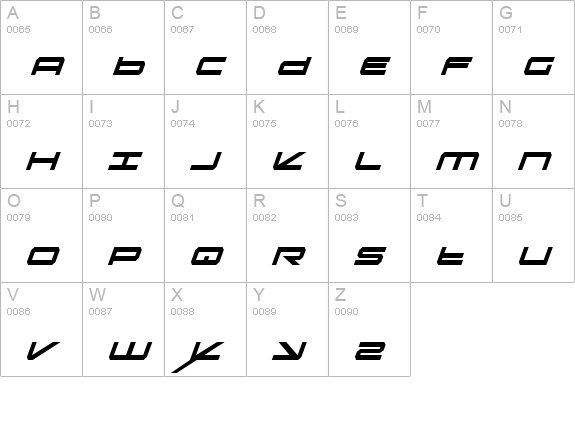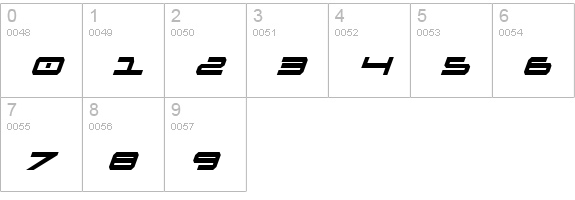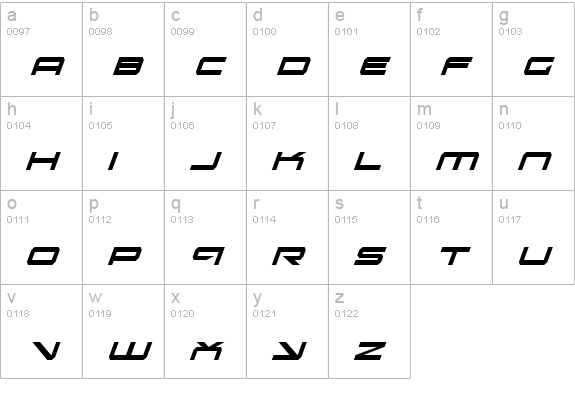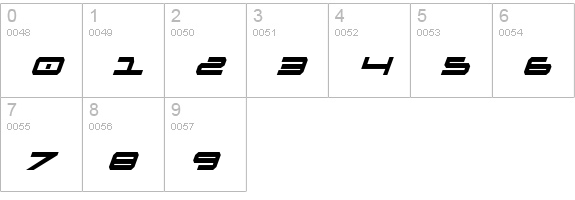
Oramac ItaliCon is a stunning and elegant font that exudes a sense of sophistication and style. Its sleek and modern design makes it perfect for a wide range of projects, from branding to editorial design. The sharp angles and clean lines of Oramac ItaliCon give it a unique and eye-catching look that is sure to make your text stand out. What makes Oramac ItaliCon even more appealing is that it is available for free download at FontsMarket.com. This means that you can easily access this beautiful font without any cost, making it a fantastic choice for designers and creatives looking to elevate their work without breaking the bank. Whether you're working on a personal project or a professional assignment, Oramac ItaliCon is sure to impress with its blend of style and accessibility.